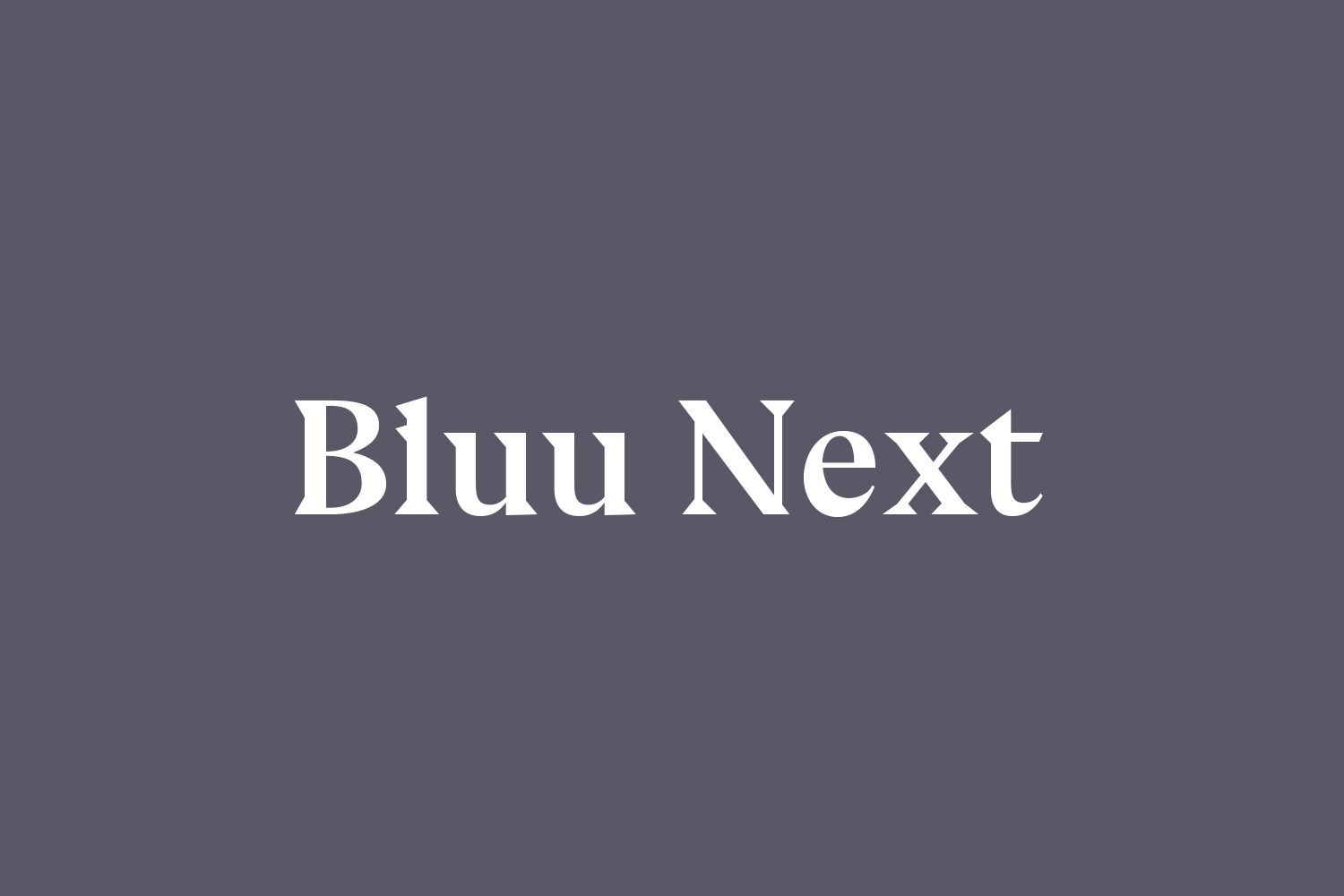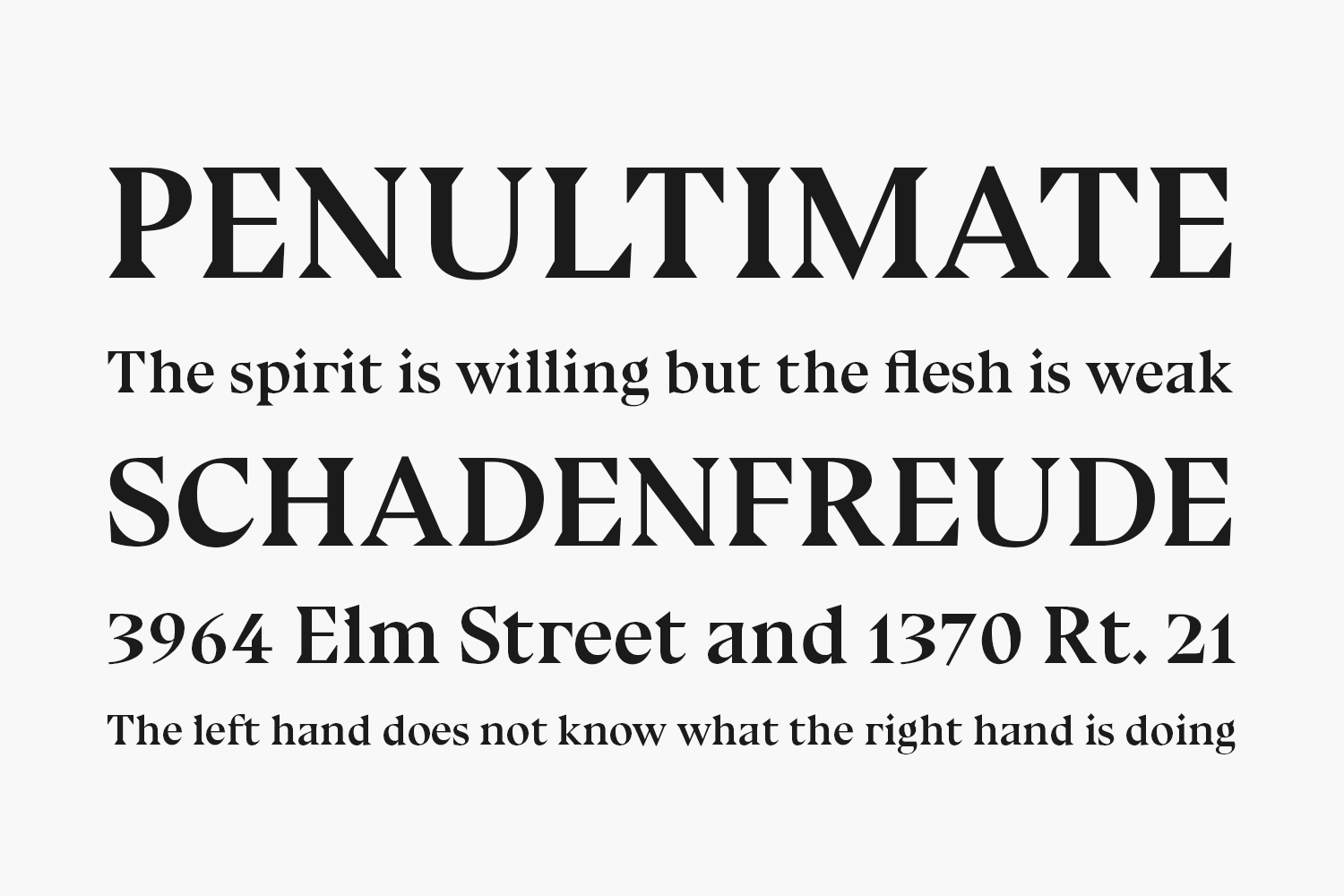
Bluu Next Free Font was the first font of JB Morizot. In 2017 he decided to redraw Bluu from scratch and make a full family. This new iteration named Bluu Suuperstar comes in 4 weights from Regular to Black, plus matching slanted italics, and is available as a commercial typeface via BlackFoundry.
Designed by Jean-Baptiste Morizot